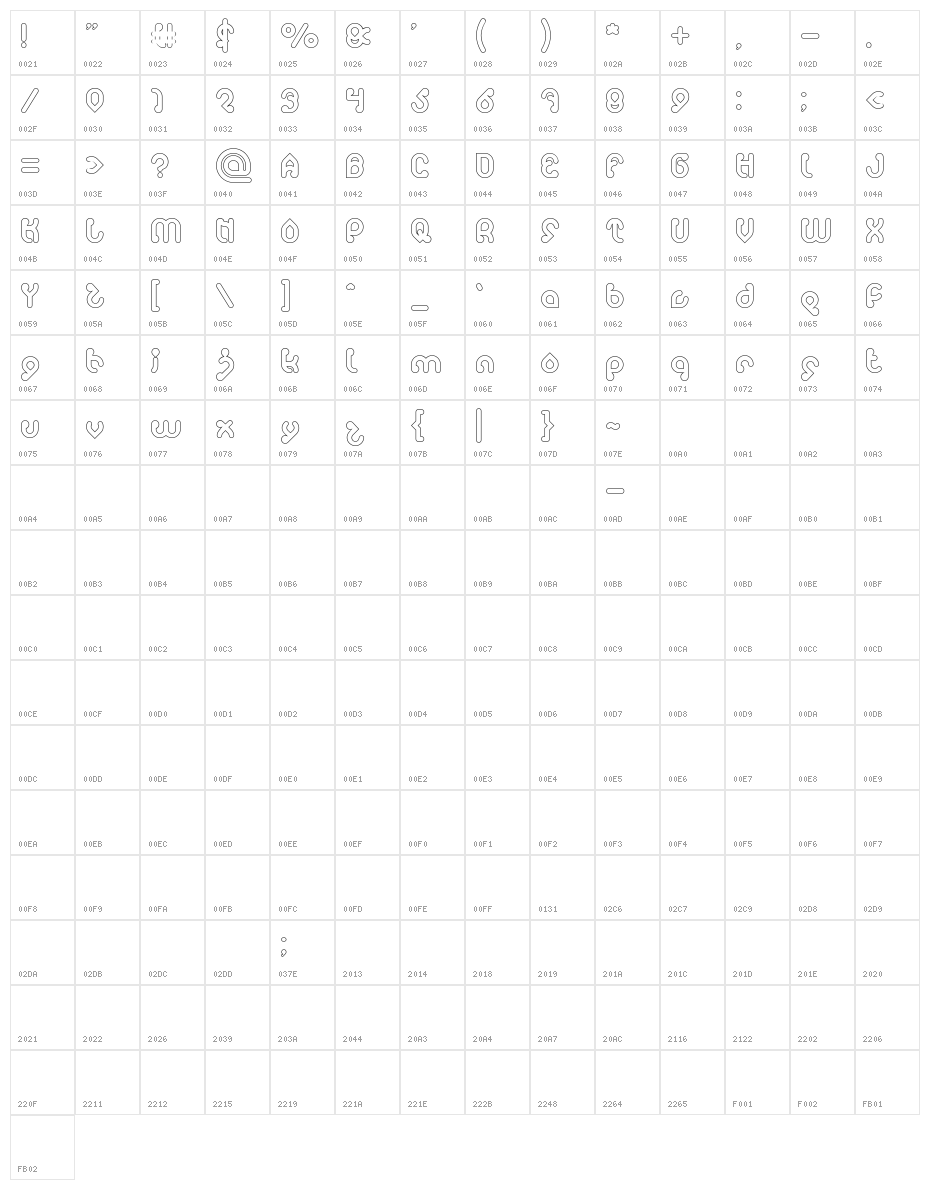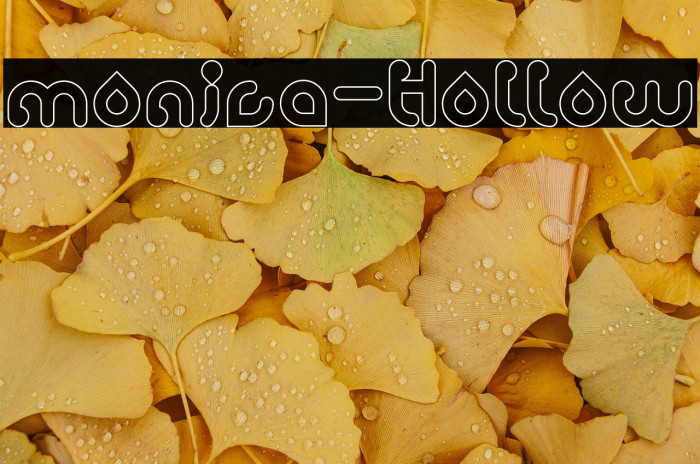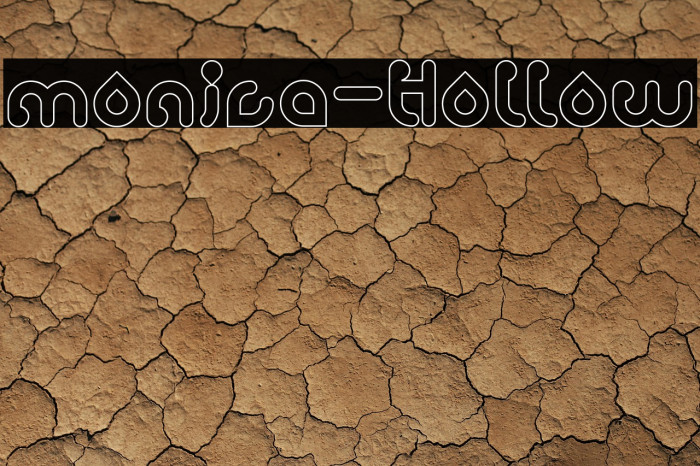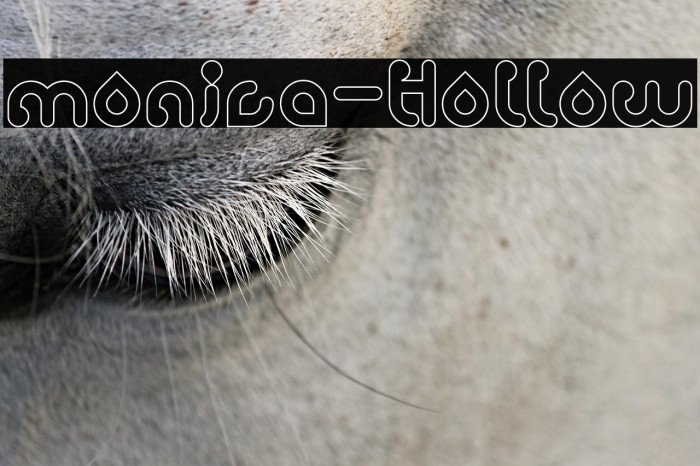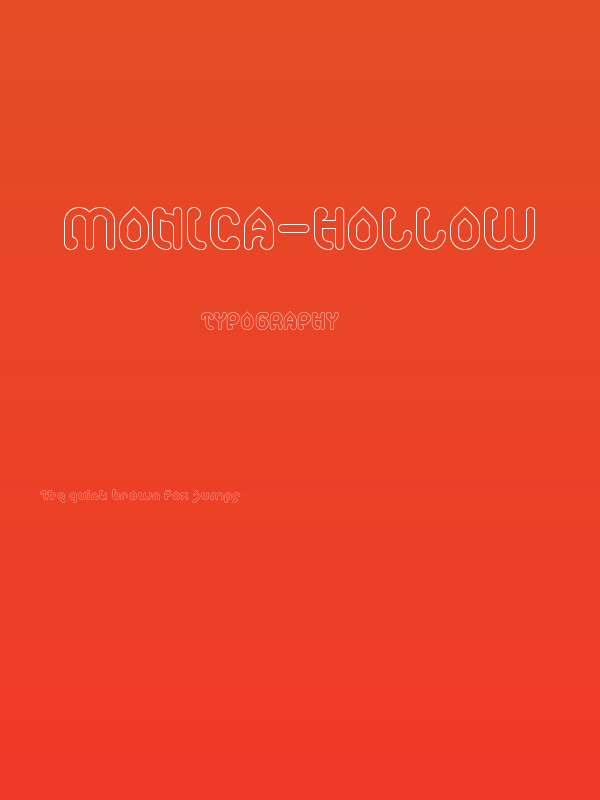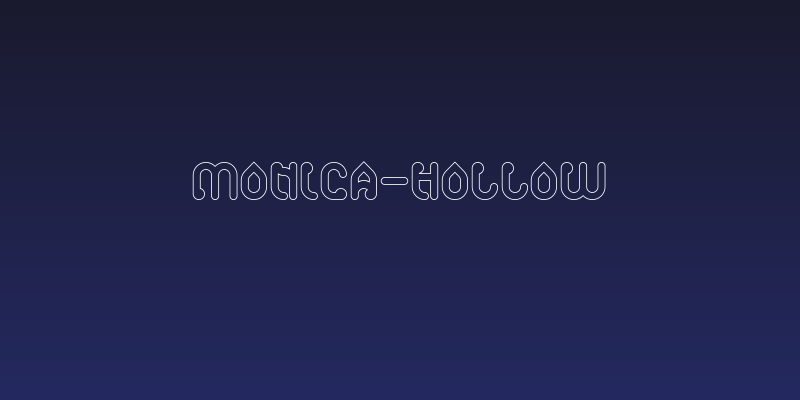
monica-Hollow Font
monica-Hollow Description
This font features a unique hollow design with a playful and modern aesthetic. The characters are outlined, giving them a three-dimensional appearance without filled interiors. The style is consistent across uppercase, lowercase, numerals, and special characters, maintaining a cohesive look. The rounded edges and smooth curves contribute to its friendly and approachable feel, making it suitable for creative and informal projects. The font's distinct outline style allows it to stand out, making it ideal for attention-grabbing designs.